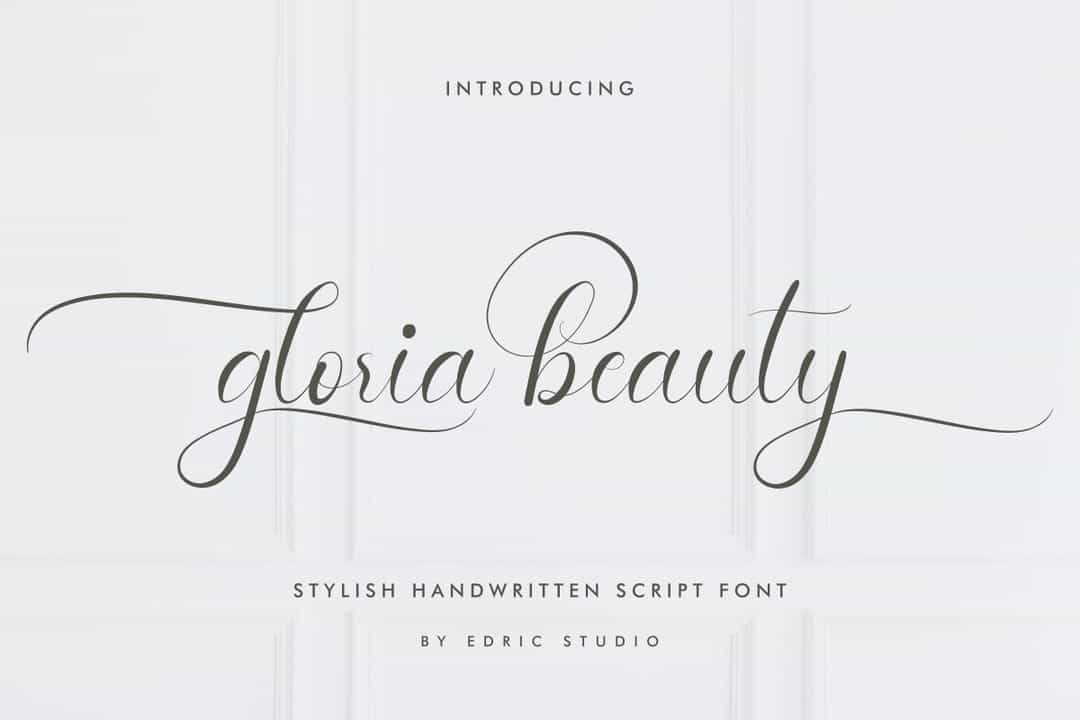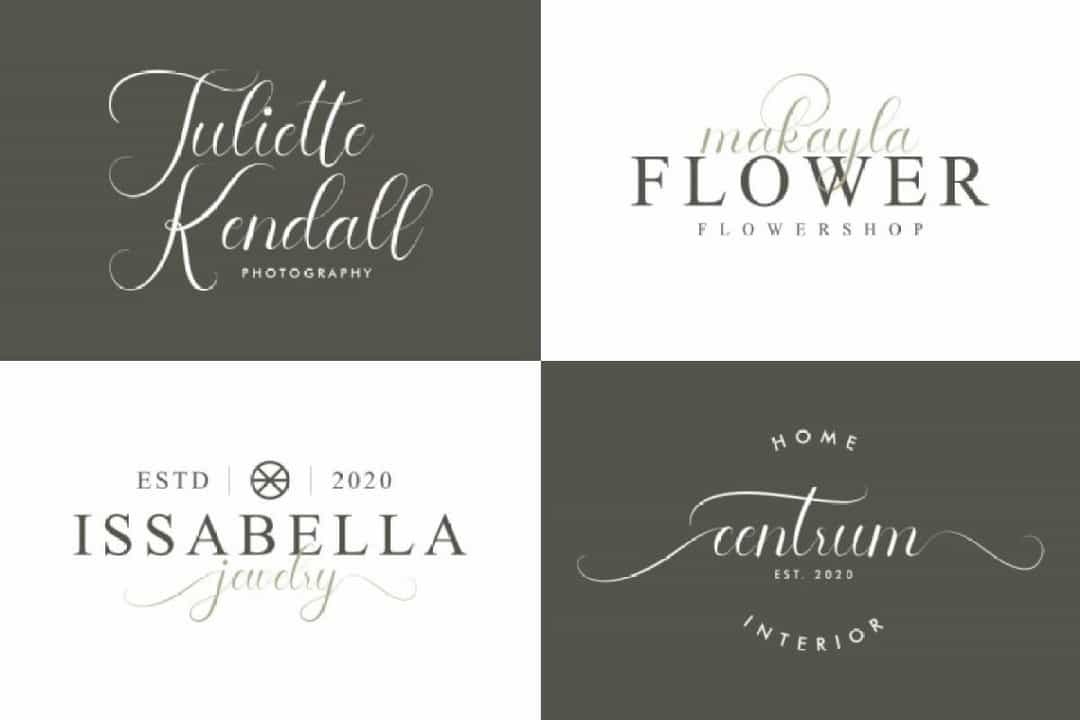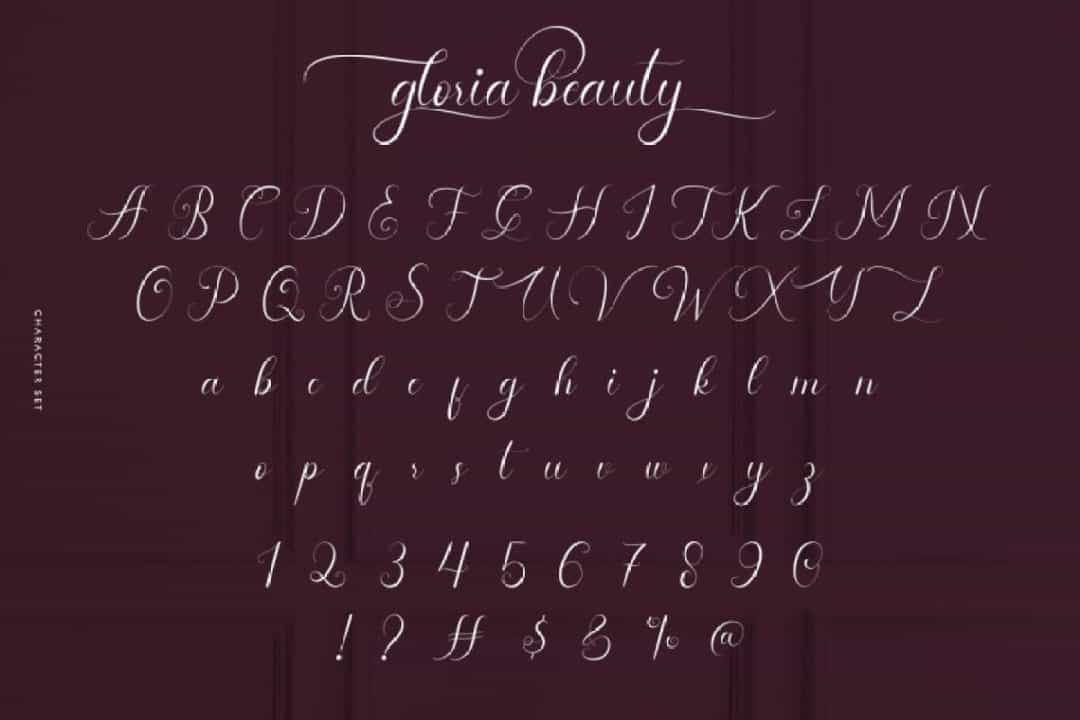
Glory Beauty is a unique and handwritten type font with smooth and casual design suitable for any kind of text. Gloria Beauty has elegant and sophisticated yet very simple styles that make it one of its kinds. The characters of the font are very nice and are well organized in terms of spacing and kerning to make up for Gloria Beauty.